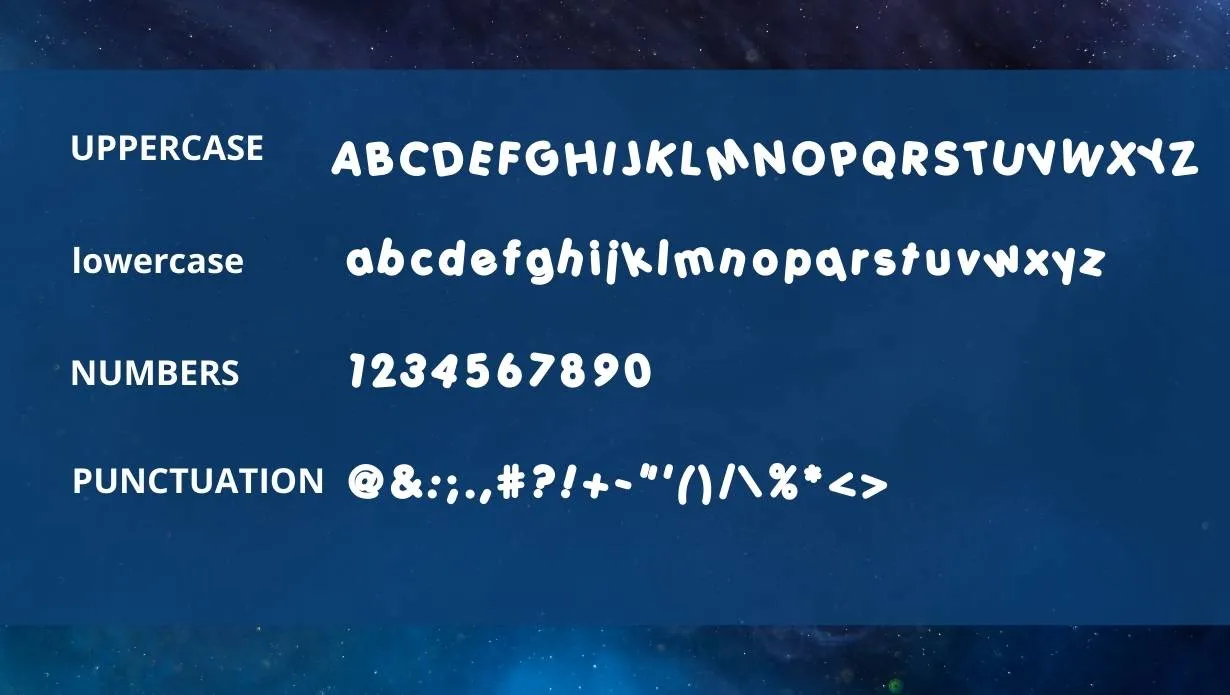
Porkys Font was designed by David Kerkhoff in 2003 as a decorative font inspired by the lettering in the opening credits of Looney Tunes cartoons, featuring the beloved character Porky Pig.
- Porkys Regular
- Porkys Heavy
| Name | Porkys Font |
| Designer | David Kerkhoff |
| Style | Display |